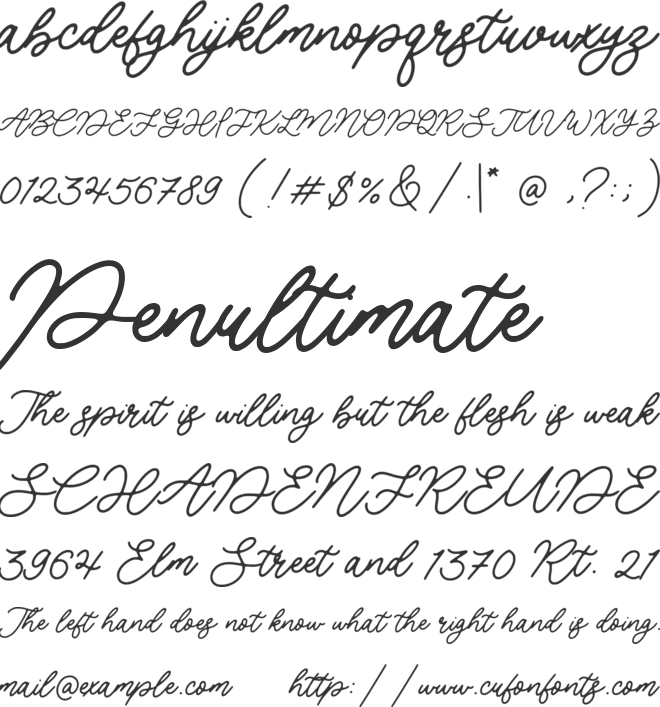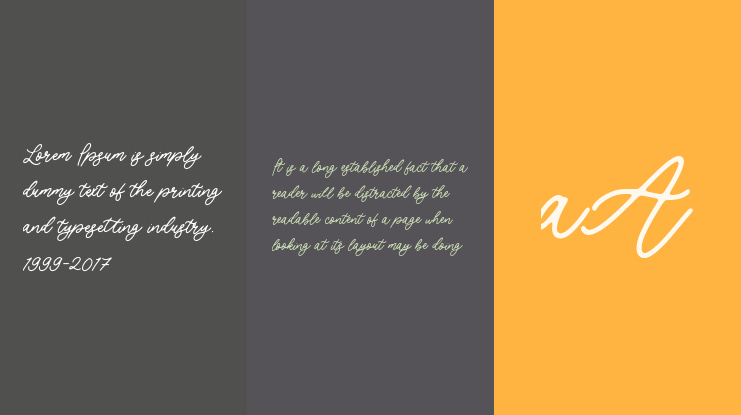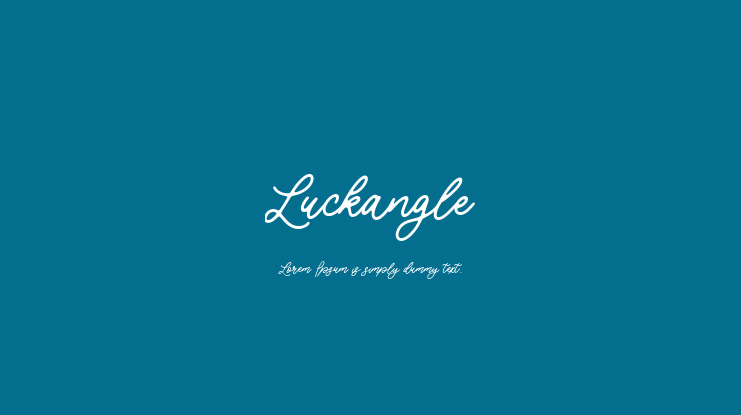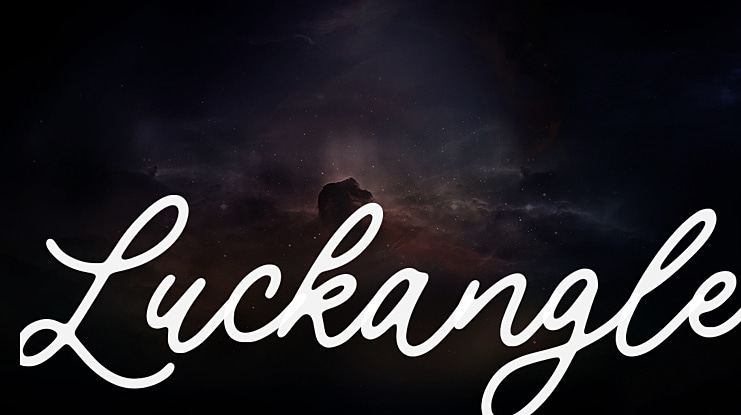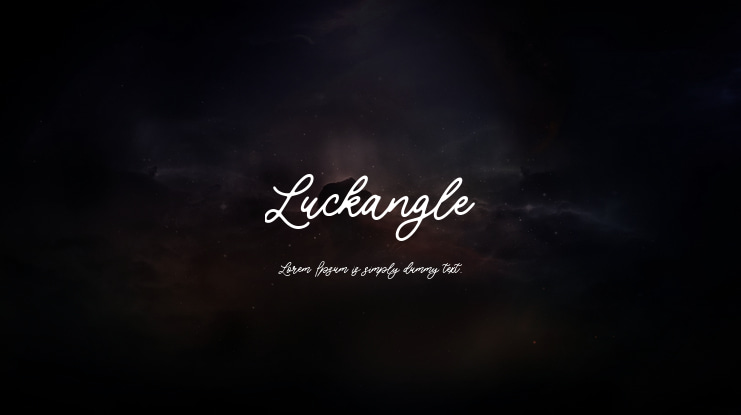
Luckangle Font
Balpirick Studio
Introducing by Balpirick Studio.
Proudly Present, Luckangle Font.
Luckangle is a Monoline Script Font.
Luckangle is a lovely and delicate script font that exudes elegance and class. This font was particularly crafted for those who need a beautiful and refreshing look to their designs.